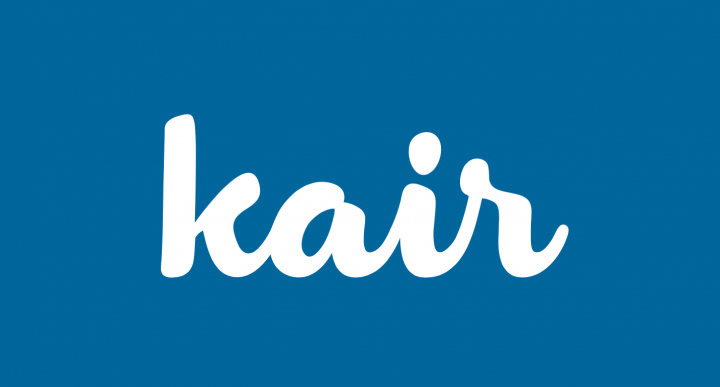
Kair coin
For printed materials, catalogues and in-store photography a kair visual style is defined.
Kair logo is the result of a research on the shapes of script & handwritten font.
Its shape is simple, easy to read and recognize, and timeless in design.
It aims to be different from the competitors, and express the brand values Kair logo is the result of a research on the shapes of script & handwritten font.
Its shape is simple, easy to read and recognize, and timeless in design.
It aims to be different from the competitors, and express the brand values Kair logo is the result of a research on the shapes of script & handwritten font.
Its shape is simple, easy to read and recognize, and timeless in design.
It aims to be different from the competitors, and express the brand values